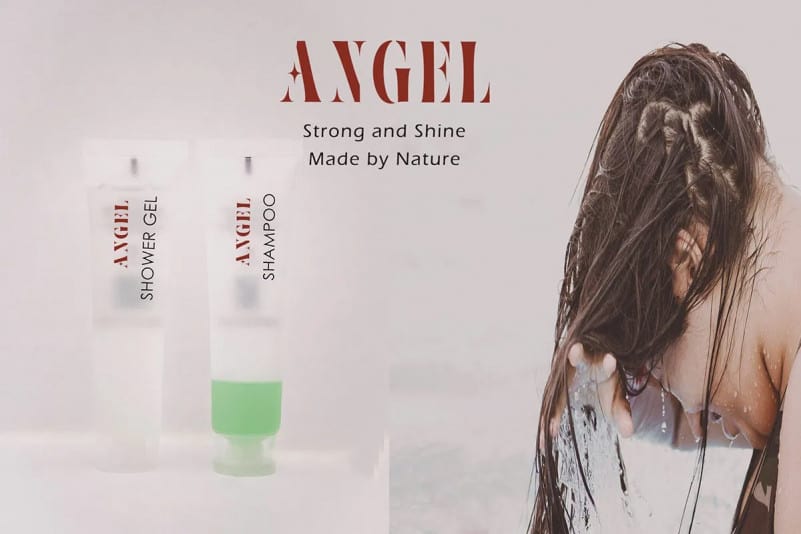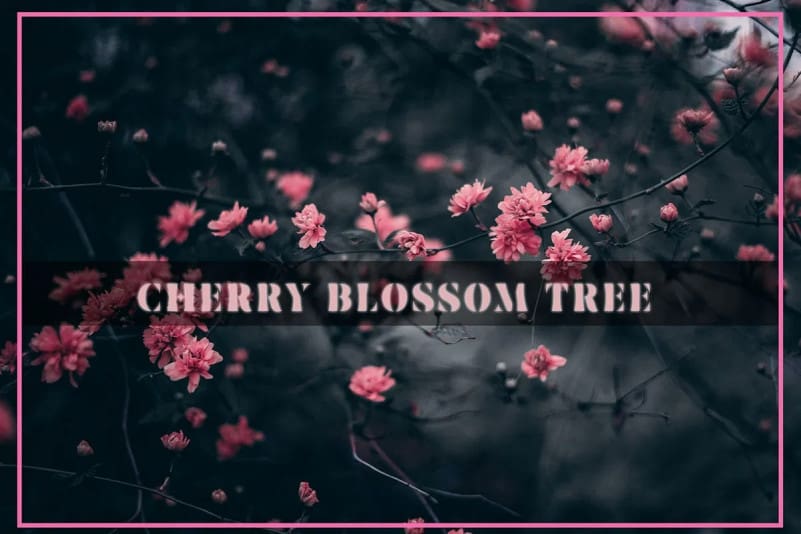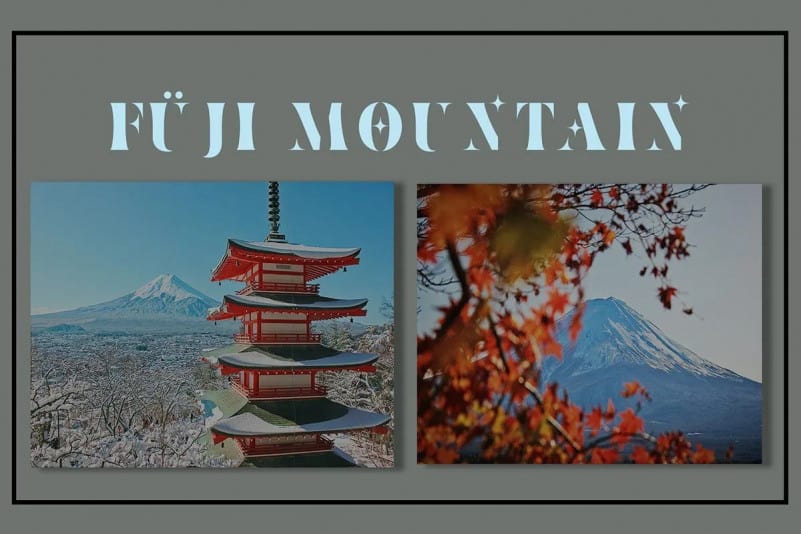
Ventus Display Font is a modernized, classic style serif typeface manufactured by fontkong. This multipurpose font can be used for wordmark logos, mastheads, pull quotes & monograms that show feminine and masculine qualities. You can also use your initial name or your brand that looks luxurious, simple and expensive.